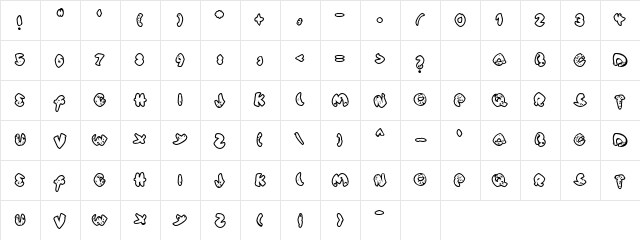
harrys underwear Regular
Design Context for harrys underwear Typeface
harrys underwear is a composed and adaptable typeface that performs quietly and consistently across a wide range of design contexts.